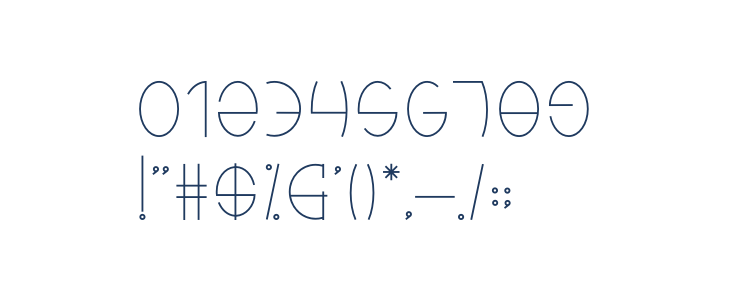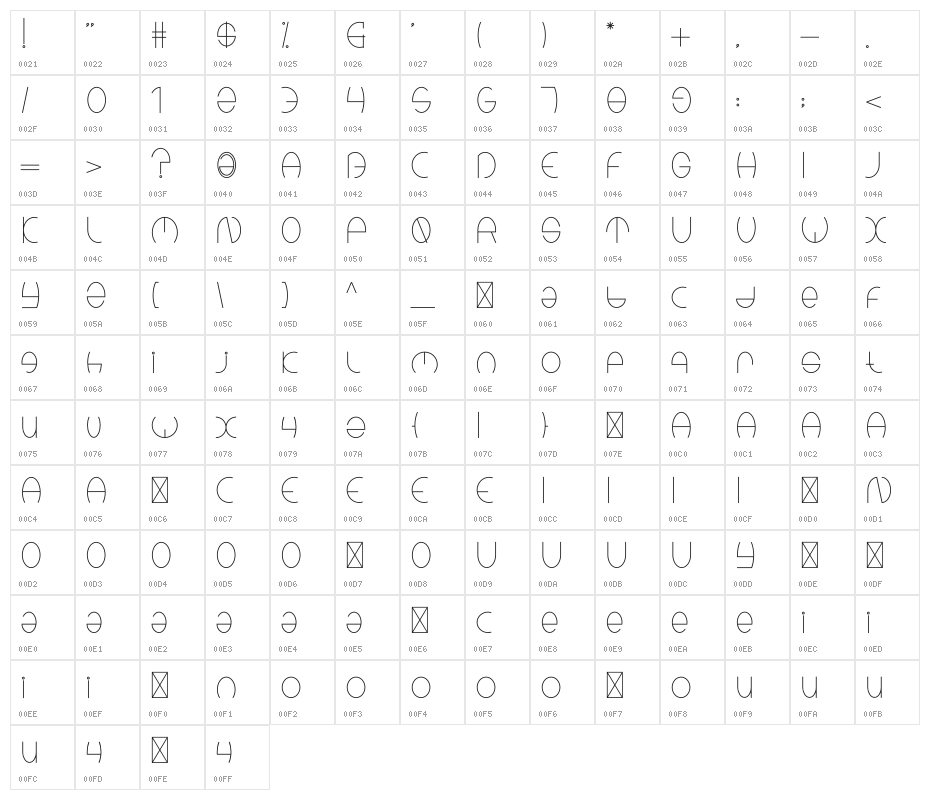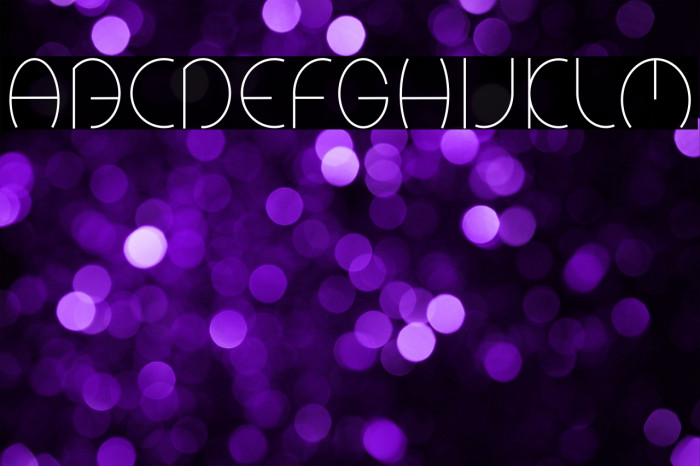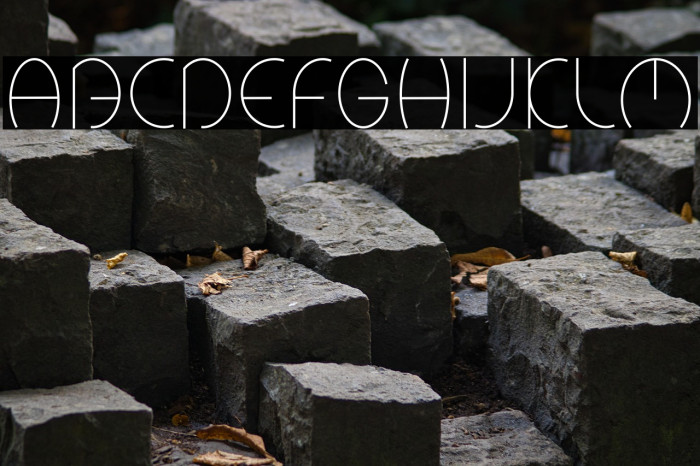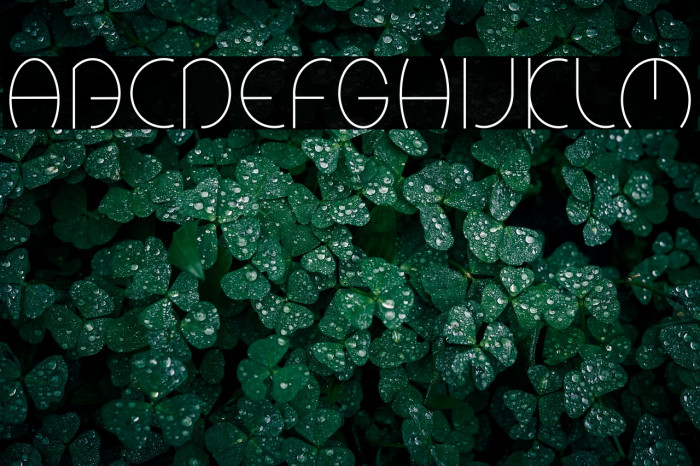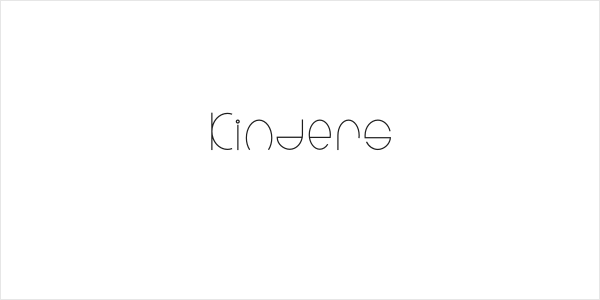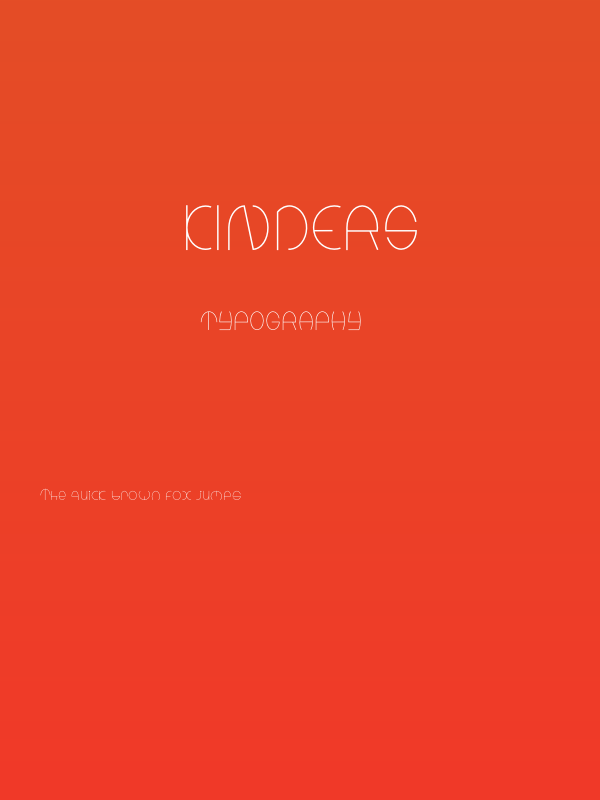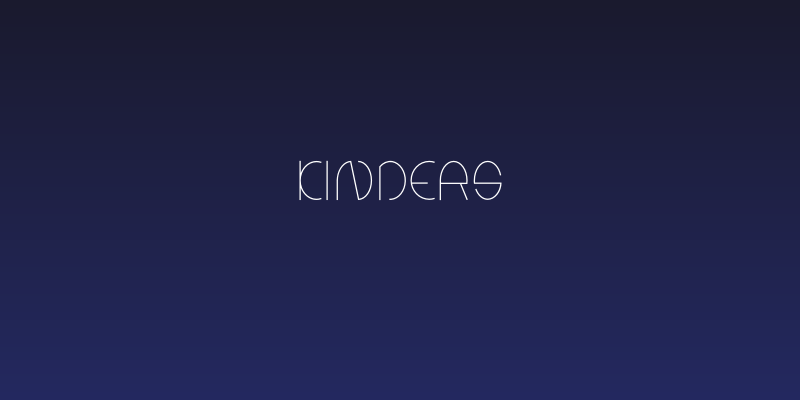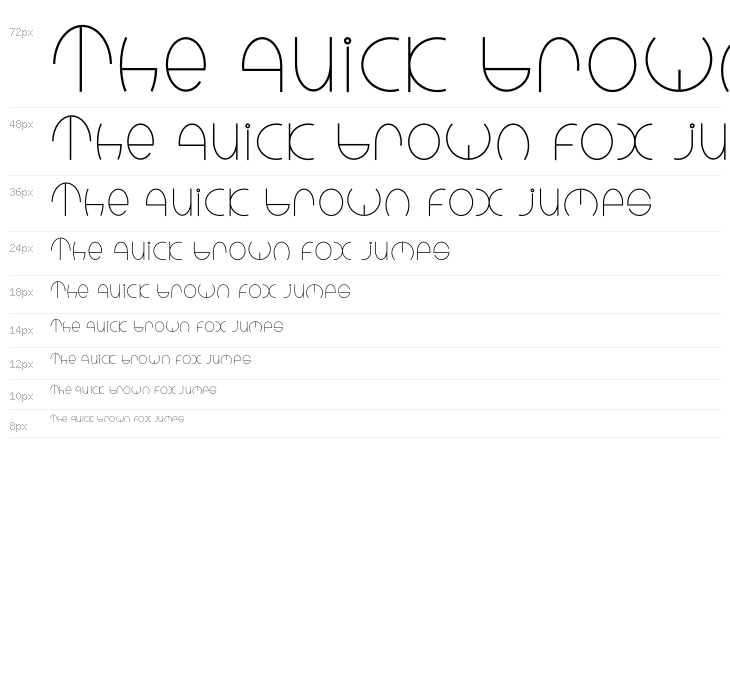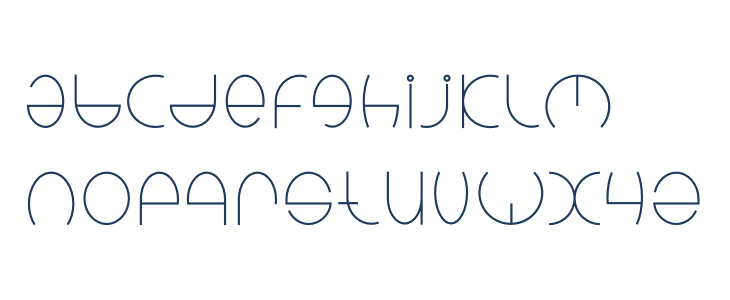
Kinders Font
Kinders Description
This font features a modern and minimalist design, characterized by its geometric shapes and clean lines. The letters are composed of simple curves and straight lines, creating a futuristic and sleek appearance. The uppercase and lowercase letters maintain a consistent style, with a focus on symmetry and balance. Numbers and special characters follow the same design principles, ensuring a cohesive look throughout. The font's unique style makes it stand out, while still being legible and versatile for various applications.
| Use Case | Logos, Headlines, Digital interfaces |
| Proposed Projects | Ideal for tech branding, futuristic designs, modern logos, and digital interfaces. |